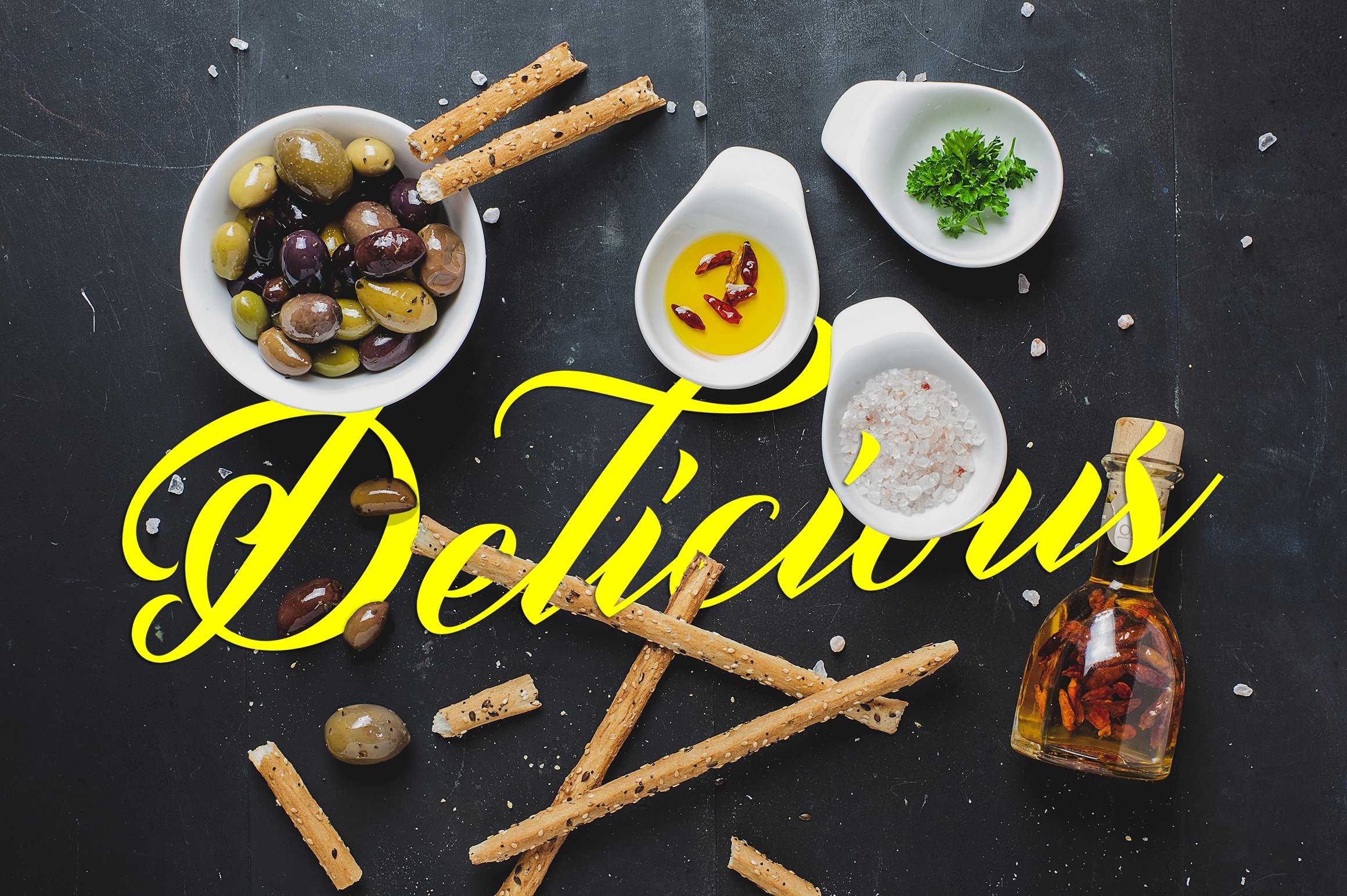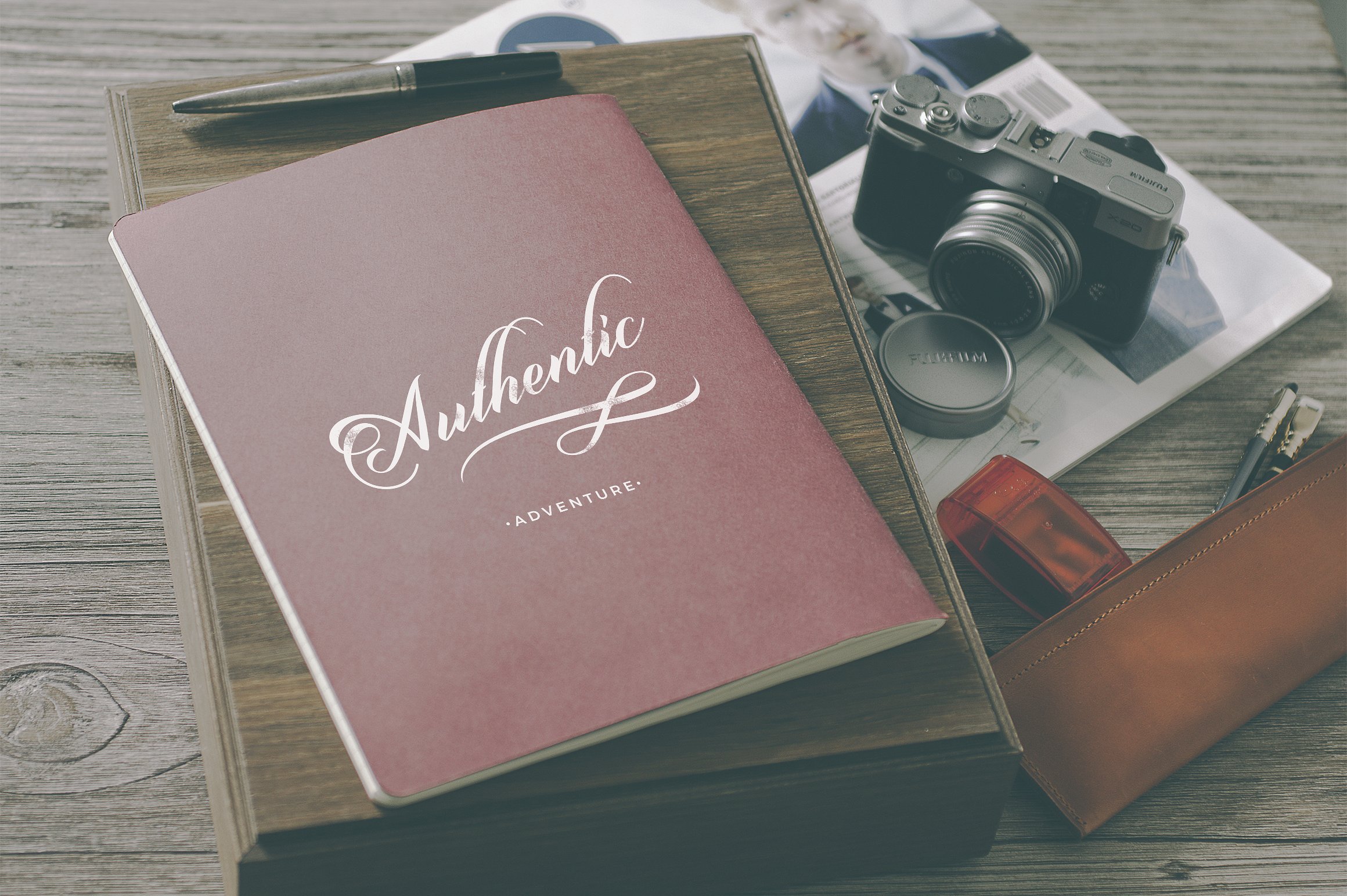
Zephan Modern Script Free Demo
Introducing Zephan Modern Script Free Demo. Zephan is a modern script typeface coming out of scratch with an authentic brush of talented type artist. It is exceptionally classy yet stylish and perfect for a wide range of project. Zephan will be great to make your text look beautiful. Therefore, it is ideal for your branding, logo, header, poster, apparel, packaging, business cards, and so much more!